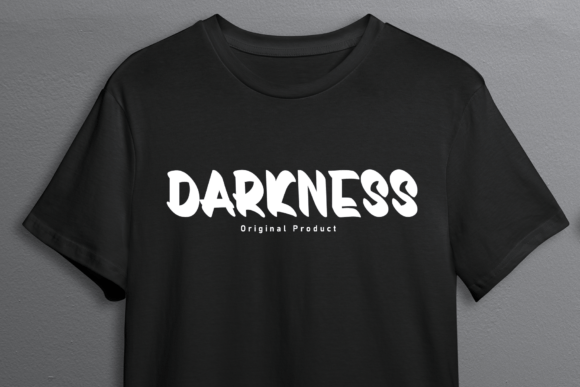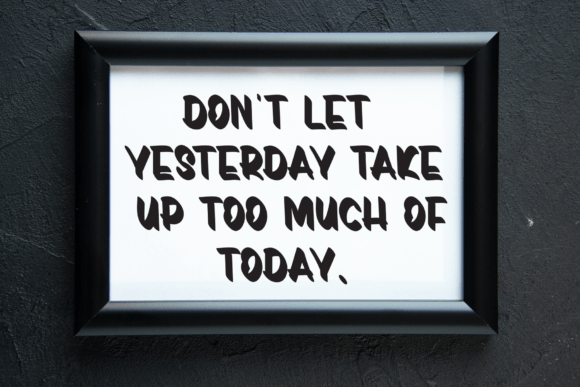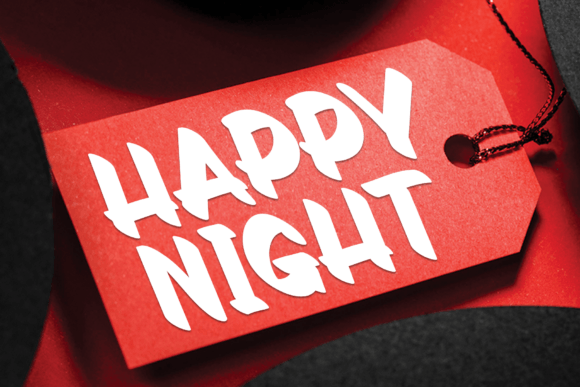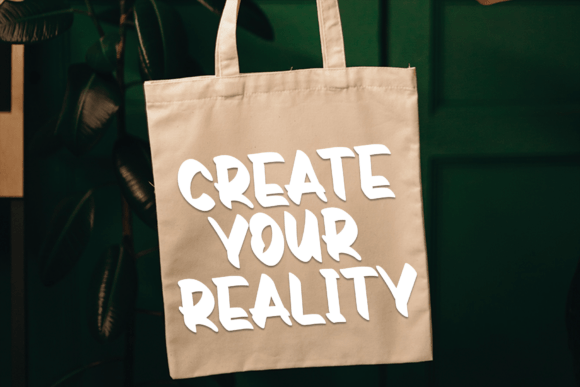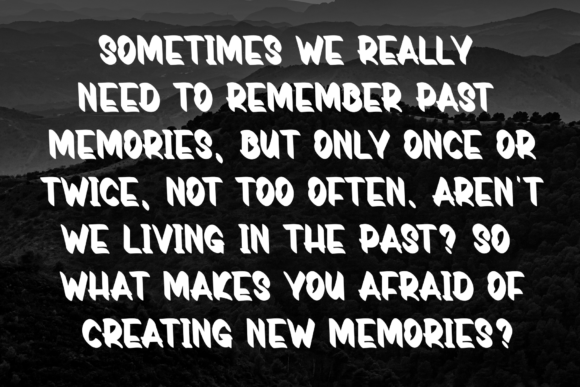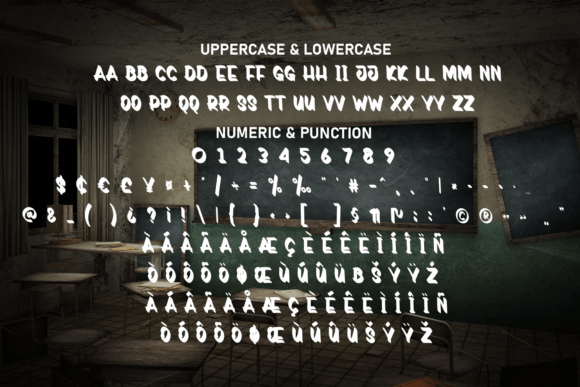
Introduction to Horror School Font Font
Fonts play a crucial role in design, and the Horror School Font font is a typeface that brings both character and versatility to any project. Whether you’re working on a branding project, a website, or a print design, the Horror School Font font offers a unique style that can elevate your work.
Horror School is a spooky and bold font that looks like it’s from a scary story.
Its sharp edges and dark style make it great for Halloween projects, horror posters, or anything that needs a creepy touch .
Key Features of Horror School Font Font
Why Choose Horror School Font Font?
The Horror School Font font is more than just a typeface – it’s a design tool that helps you communicate your message with style and clarity. Its unique character set and versatile design make it suitable for a wide range of applications, from elegant invitations to bold headlines.
With its carefully crafted letterforms and balanced proportions, the Horror School Font font ensures readability and visual appeal across all mediums.
What makes Horror School Font font special?
The Horror School Font font stands out with its unique design, exceptional readability, and versatility across various design applications.